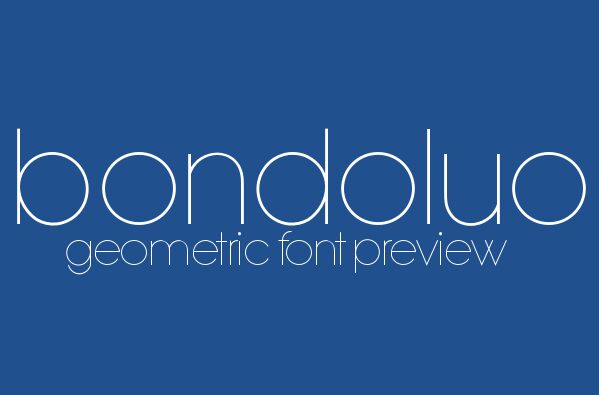
ATO Bondoluo Peek by Alvaro Thomaz is a free geometric sans serif with an exceptionally light, monoline drawing. Broad circular forms give the letters an airy silhouette. Tall verticals and clean, clipped endings keep the curves from feeling soft or casual.
Its pared-back modernist character suits fashion branding and cultural event posters. Fine strokes also fit magazine covers and minimalist packaging. Repeated circles make it especially apt for layouts built around round product photography or simple geometric illustration.
Version 1.2 update: Fixed f and g cuts.